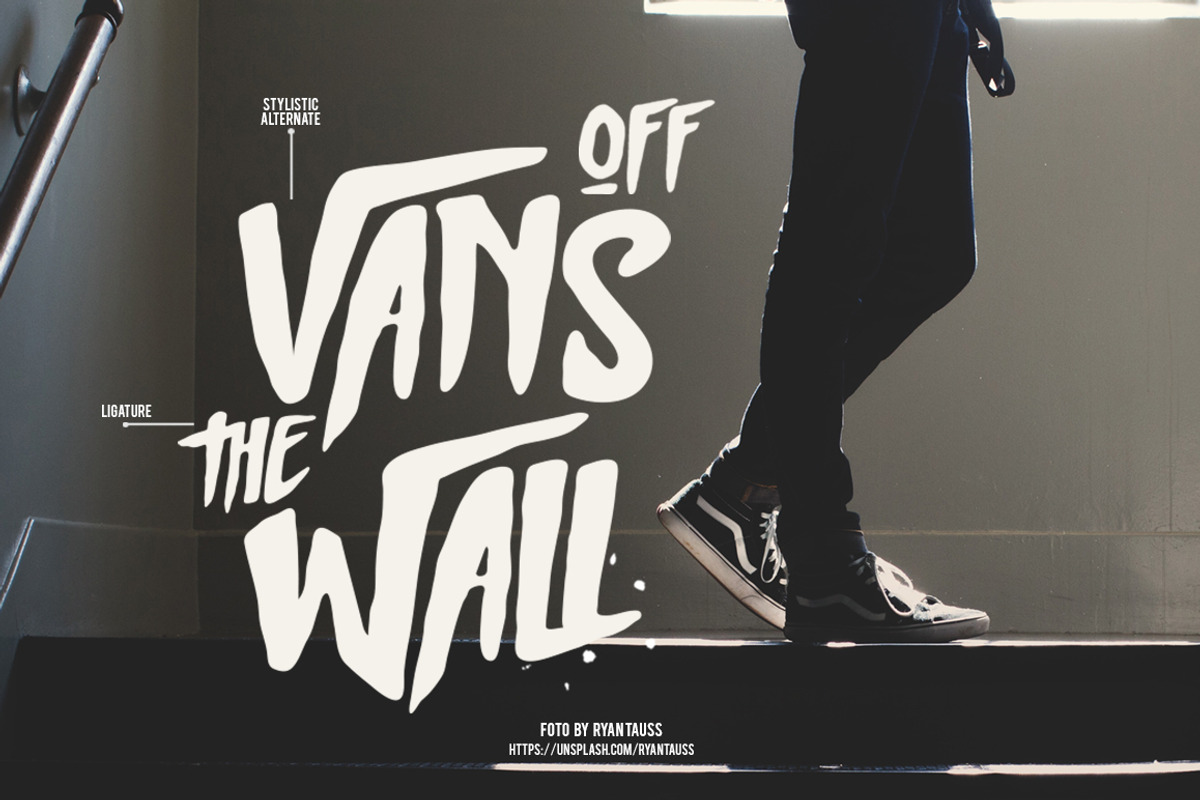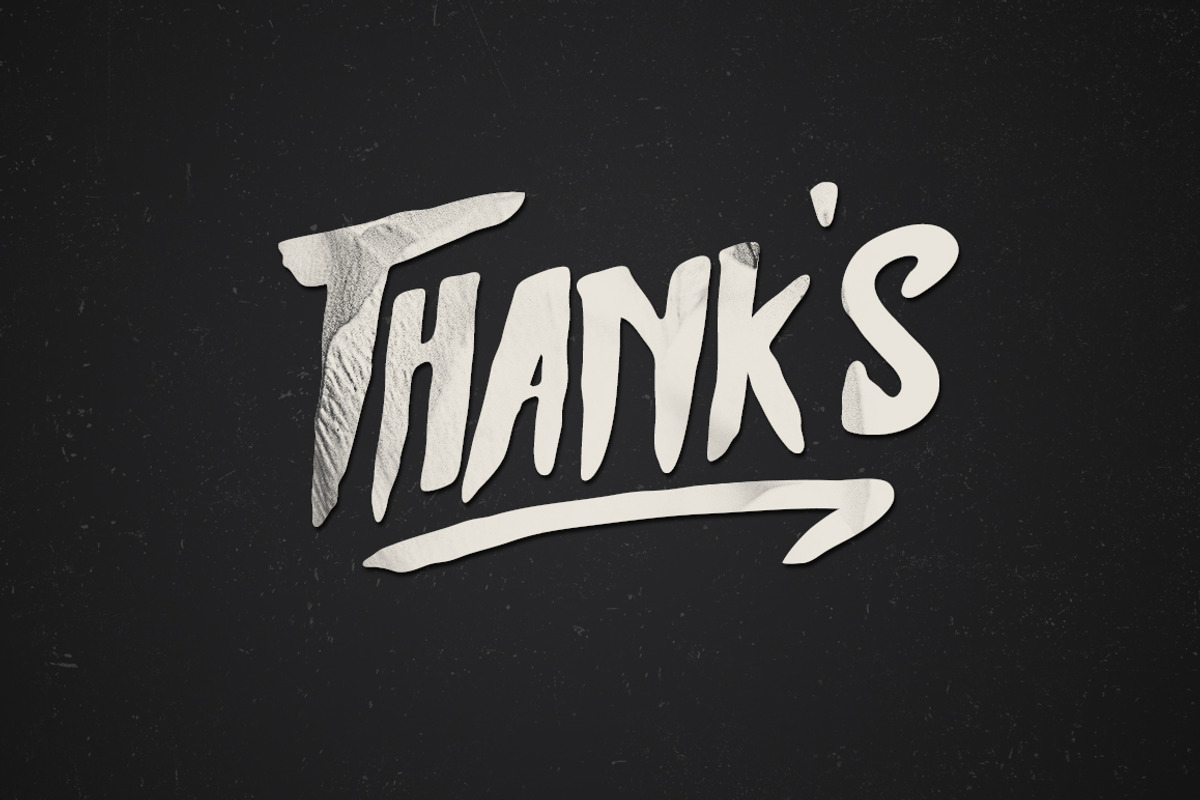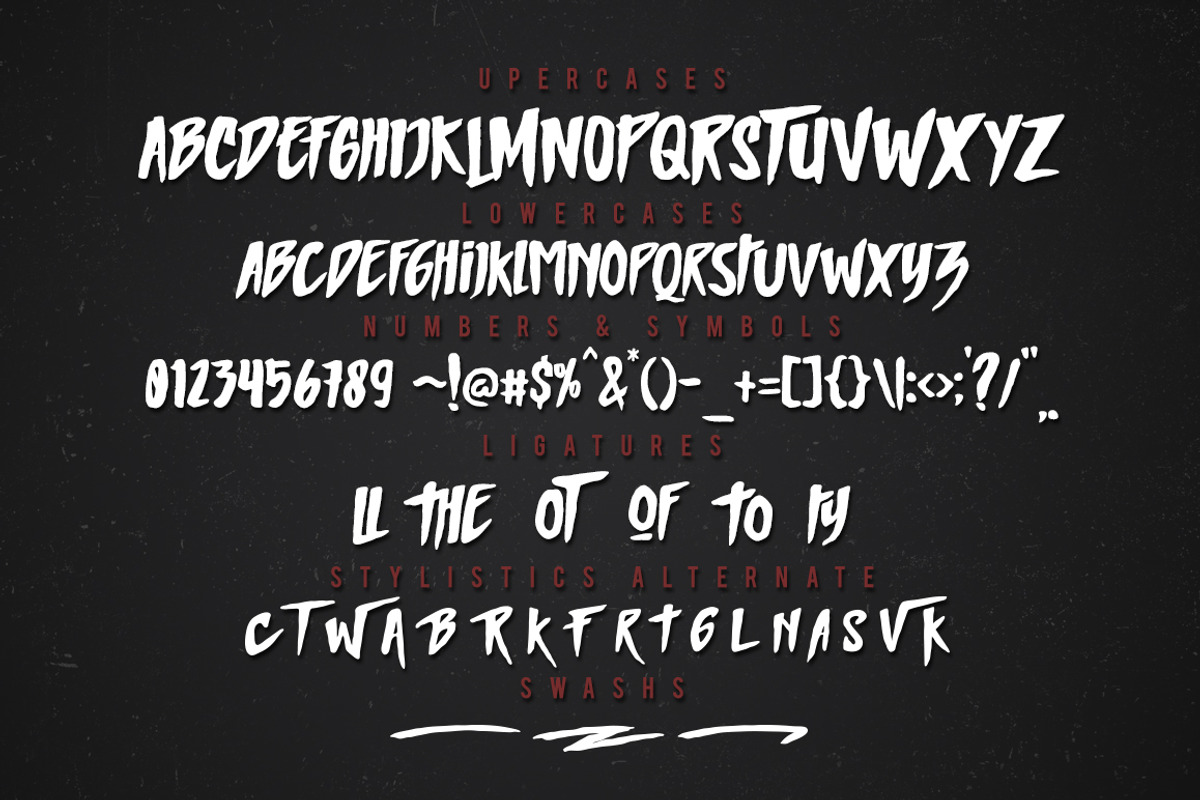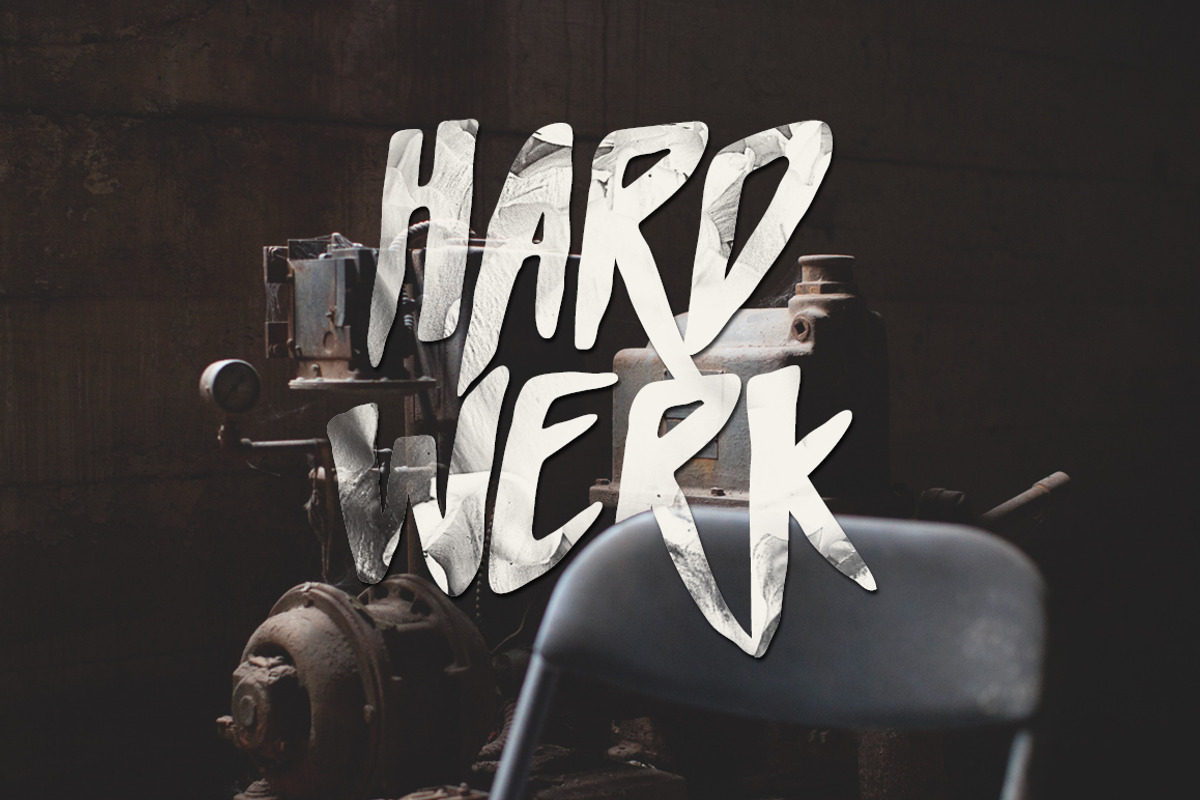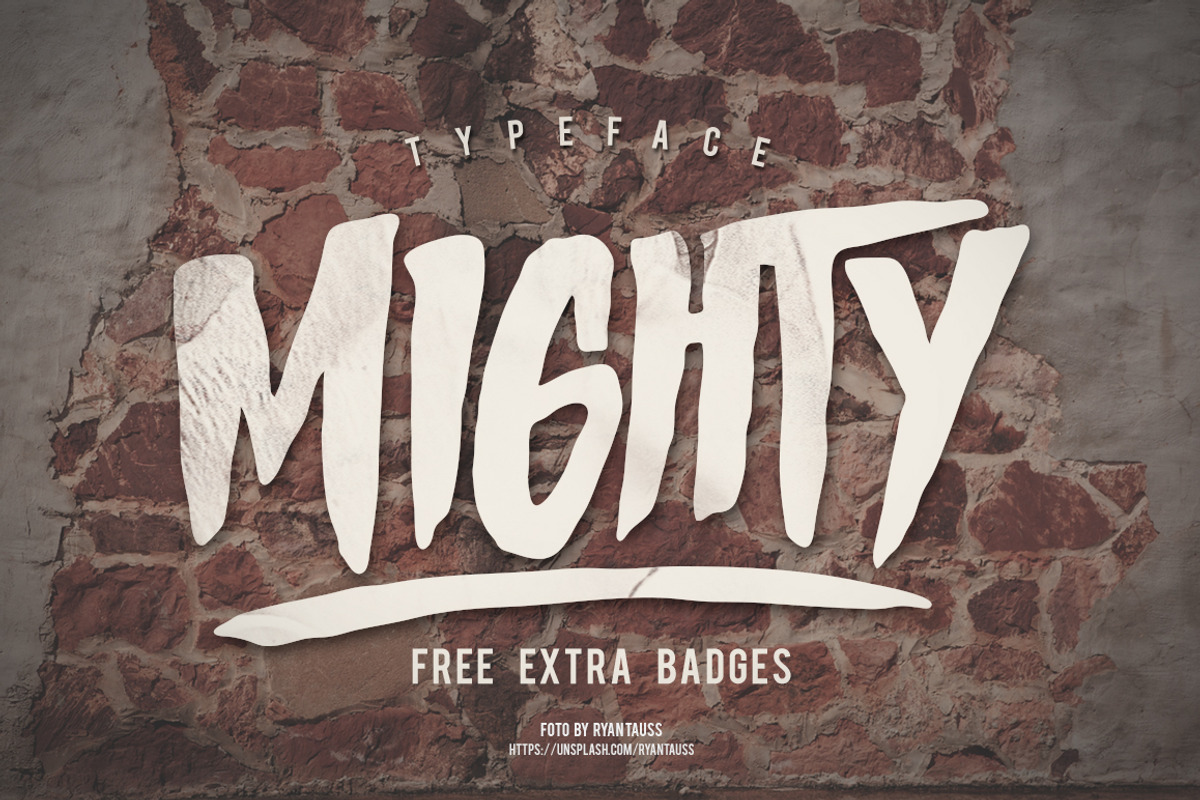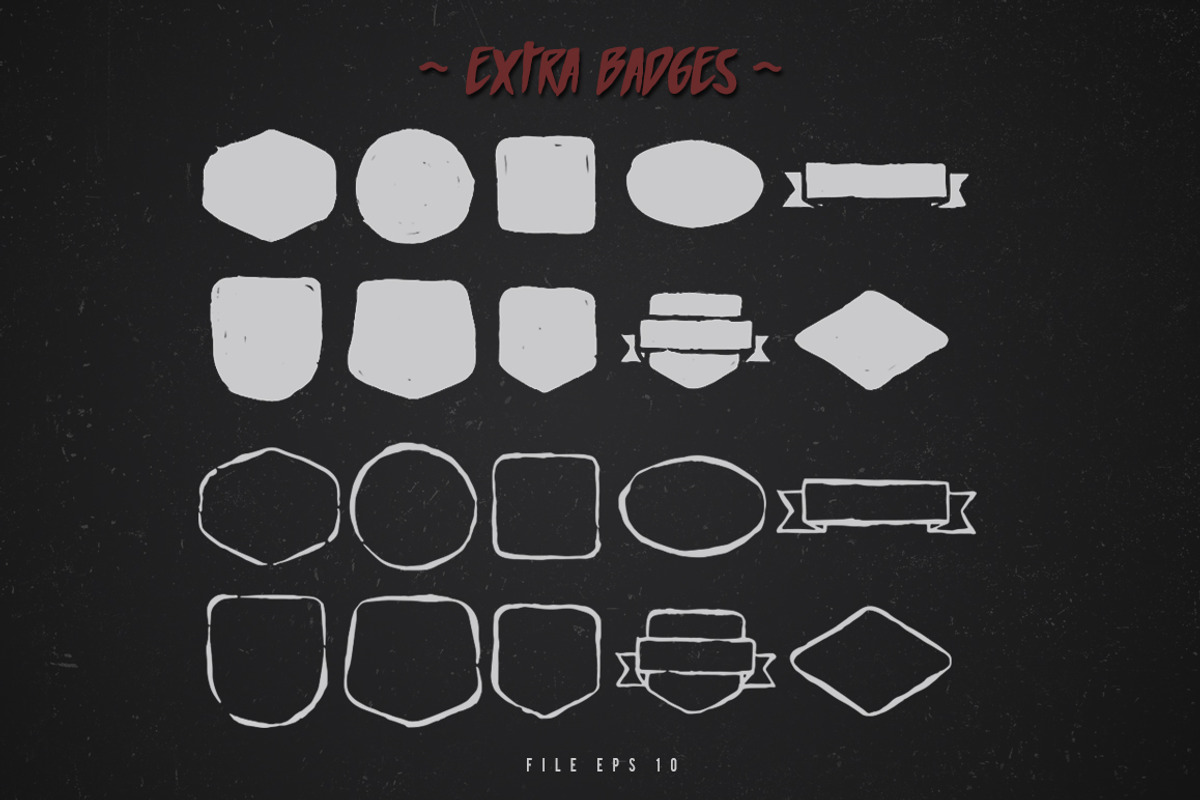
MIGHTY Typeface + Extra Badges
MIGHTY Typeface + Extra Badges by giemons™ is a font selected for branding, posters, packaging, typography.
Why MIGHTY Typeface + Extra Badges is worth a look
MIGHTY Typeface + Extra Badges by giemons™ fits naturally into Branding, posters, packaging, typography.